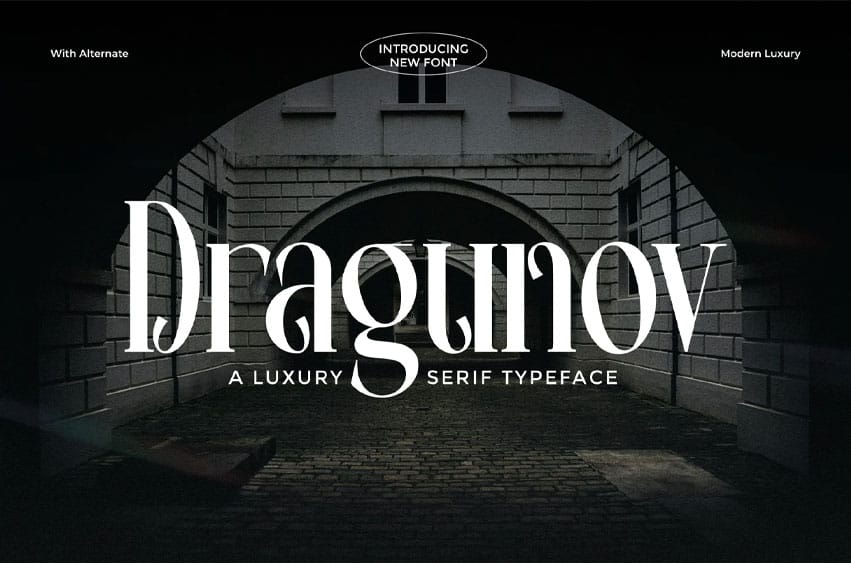
Dragunov Font
Dragunov Font Elevate your designs with Modern Dragunov Elegant Font — a masterfully crafted typeface that fuses refinement with bold, modern aesthetics. Whether you’re designing striking headlines, high-end branding, fashion magazines, luxury packaging, or sleek web banners, this font delivers elegance, clarity, and an unmistakable premium feel.
• Some Alternates and Ligatures
Transform any project into a statement of elegance — Modern Dragunov Elegant Font gives your designs the edge, the boldness, and the sophistication your audience will remember.